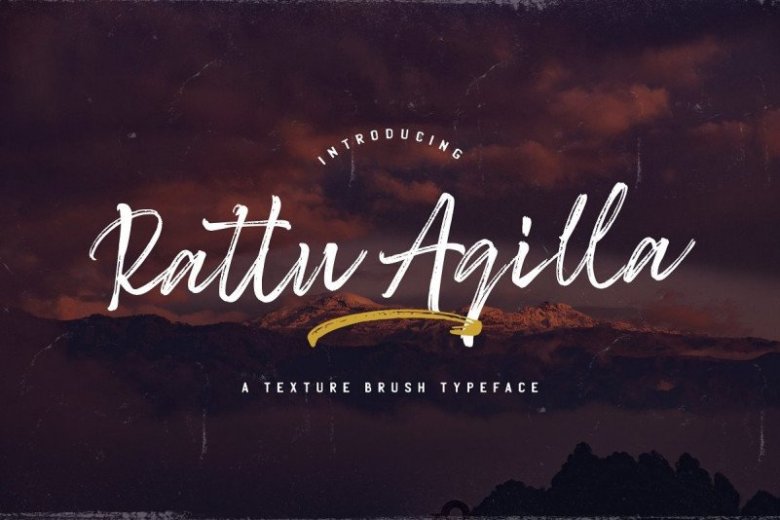
Rattu Aqilla Brush Font
Introducing Rattu Aqilla Brush Font with a handwritten Style and classy style. This font is designed and shared by StringLabs. A textured handwritten brush font, created with the help of a authentic brush. Get inspired by its unique and beautiful style and add it to your favorite designs!
This font is great for your creative projects such as watermark on photography, and perfect for logos & branding, photography, invitation, watermark, advertisements, product designs, stationery, wedding designs,label ,product packaging, special events or anything that need handwritting taste.